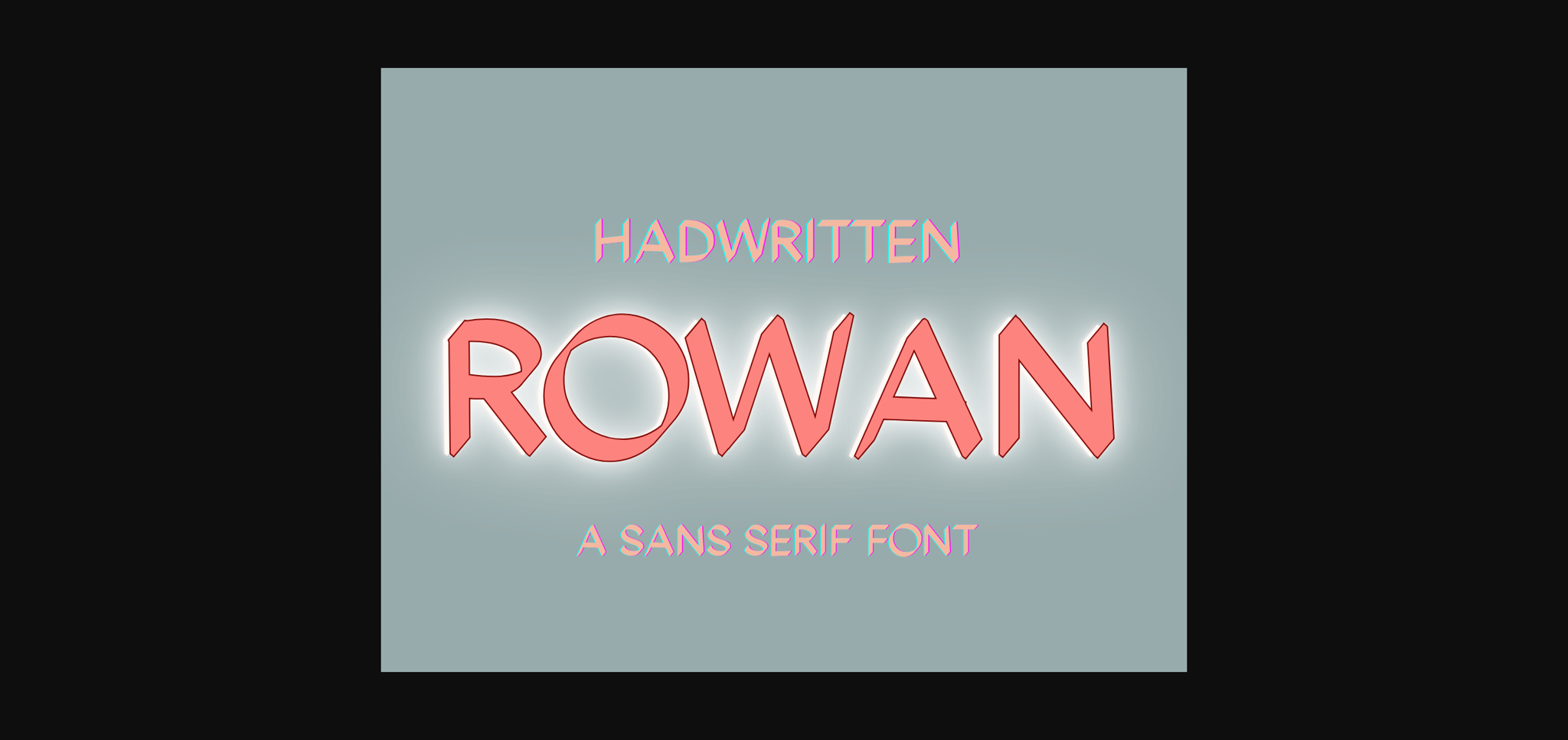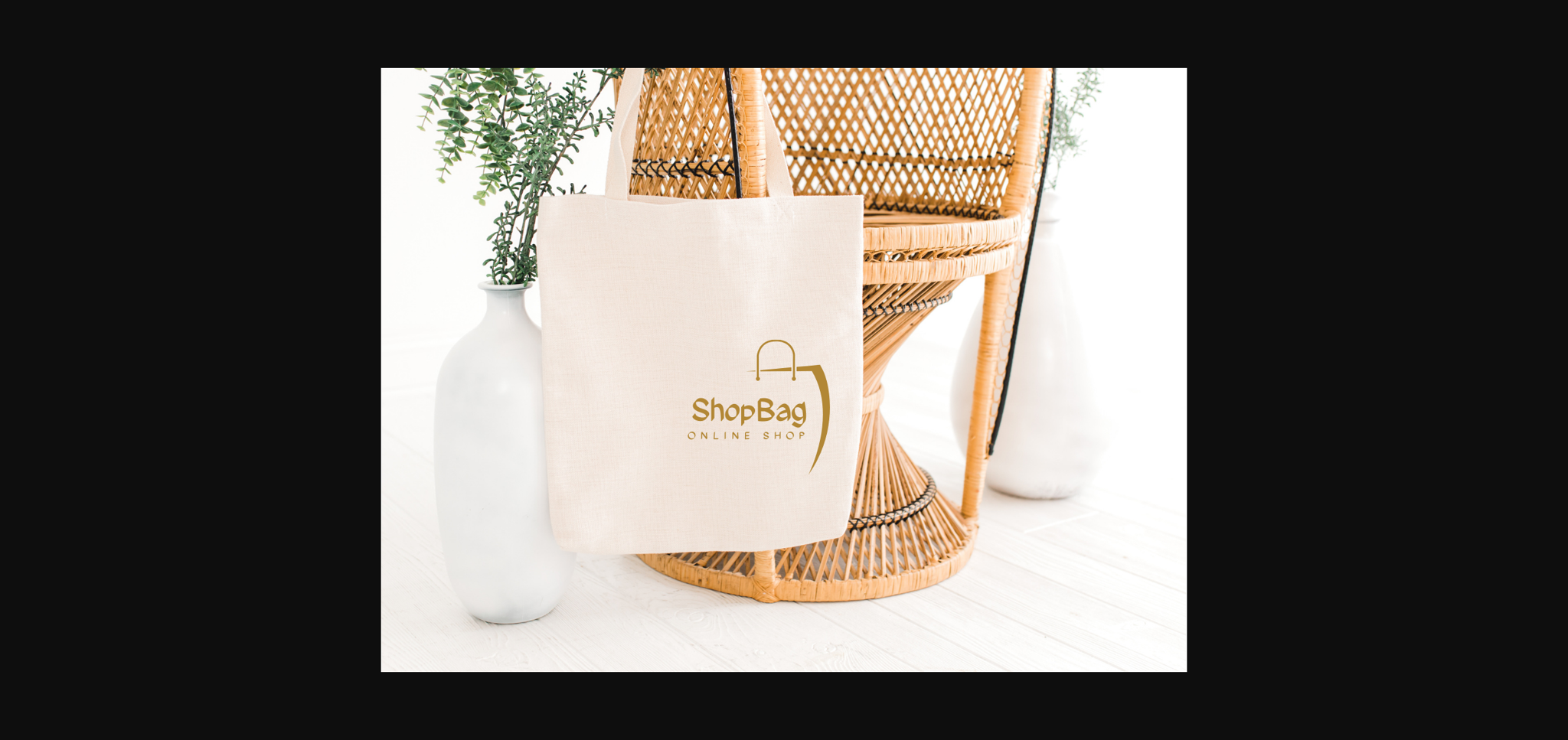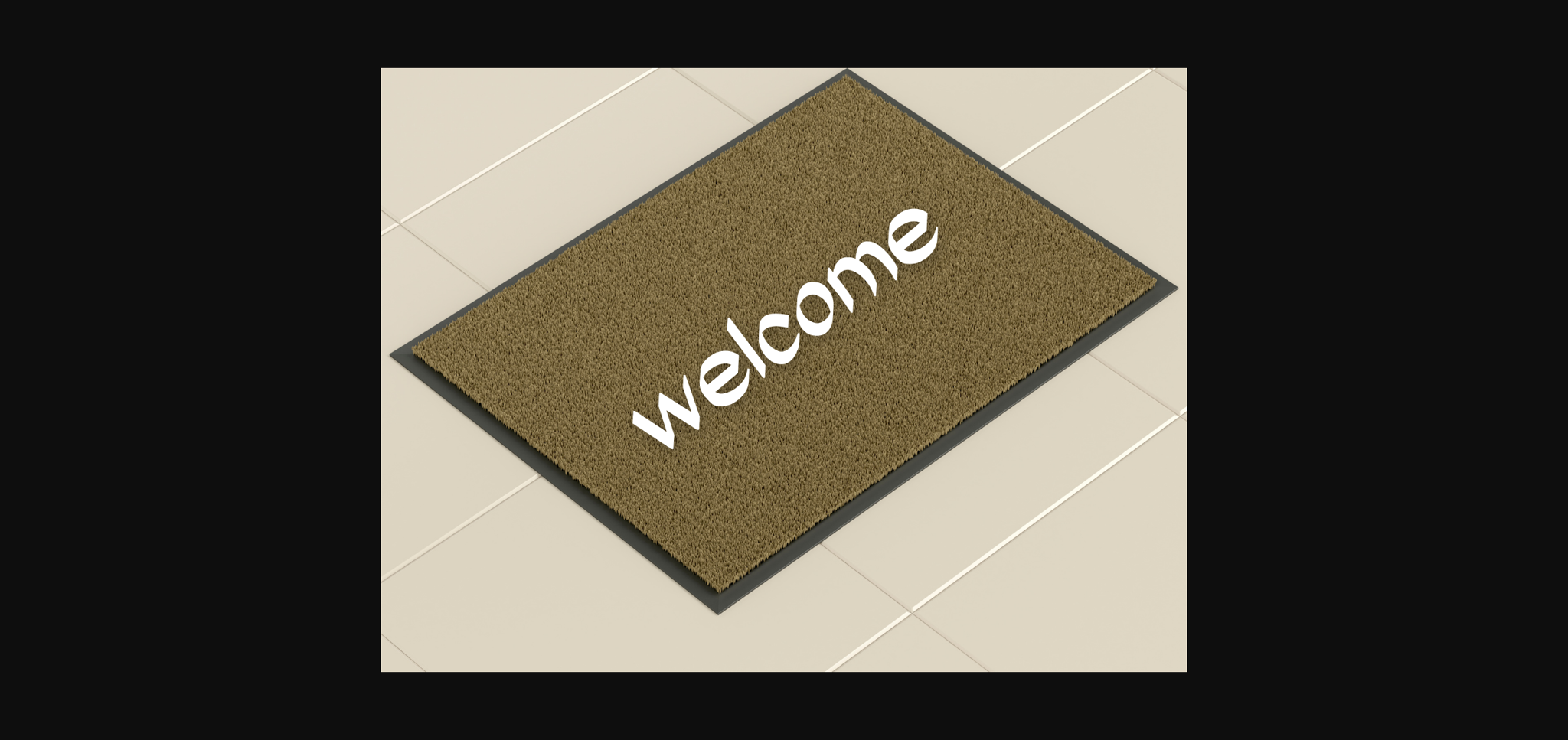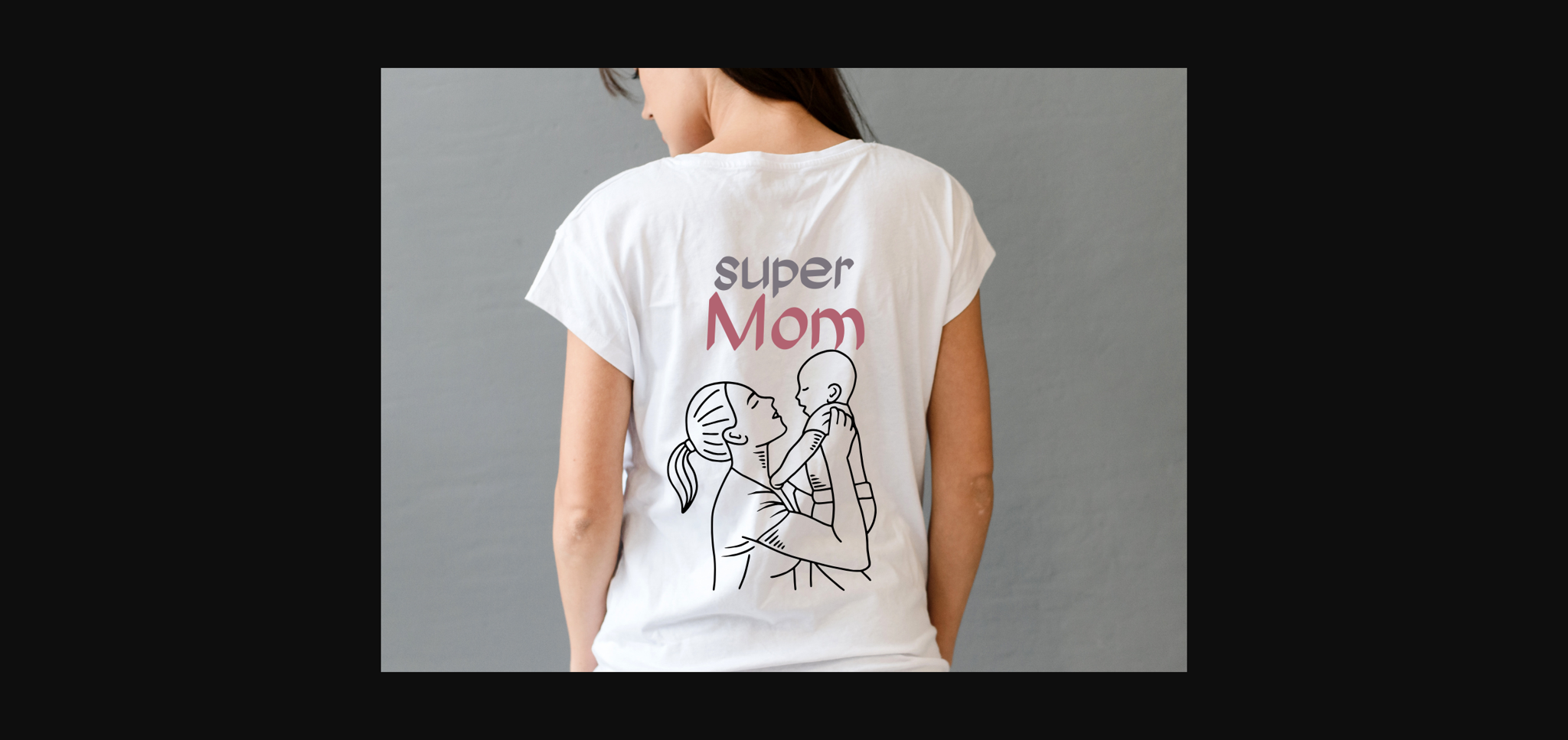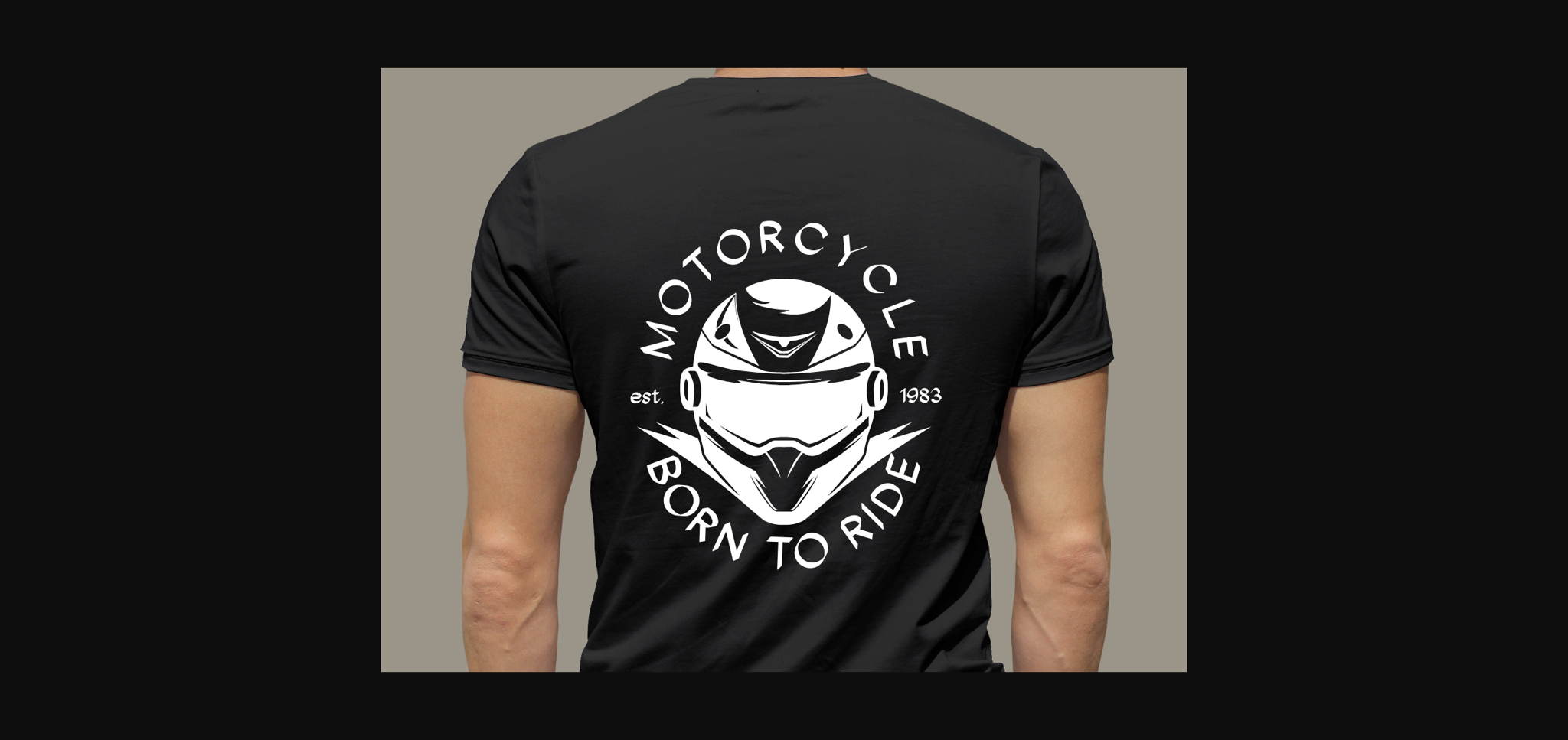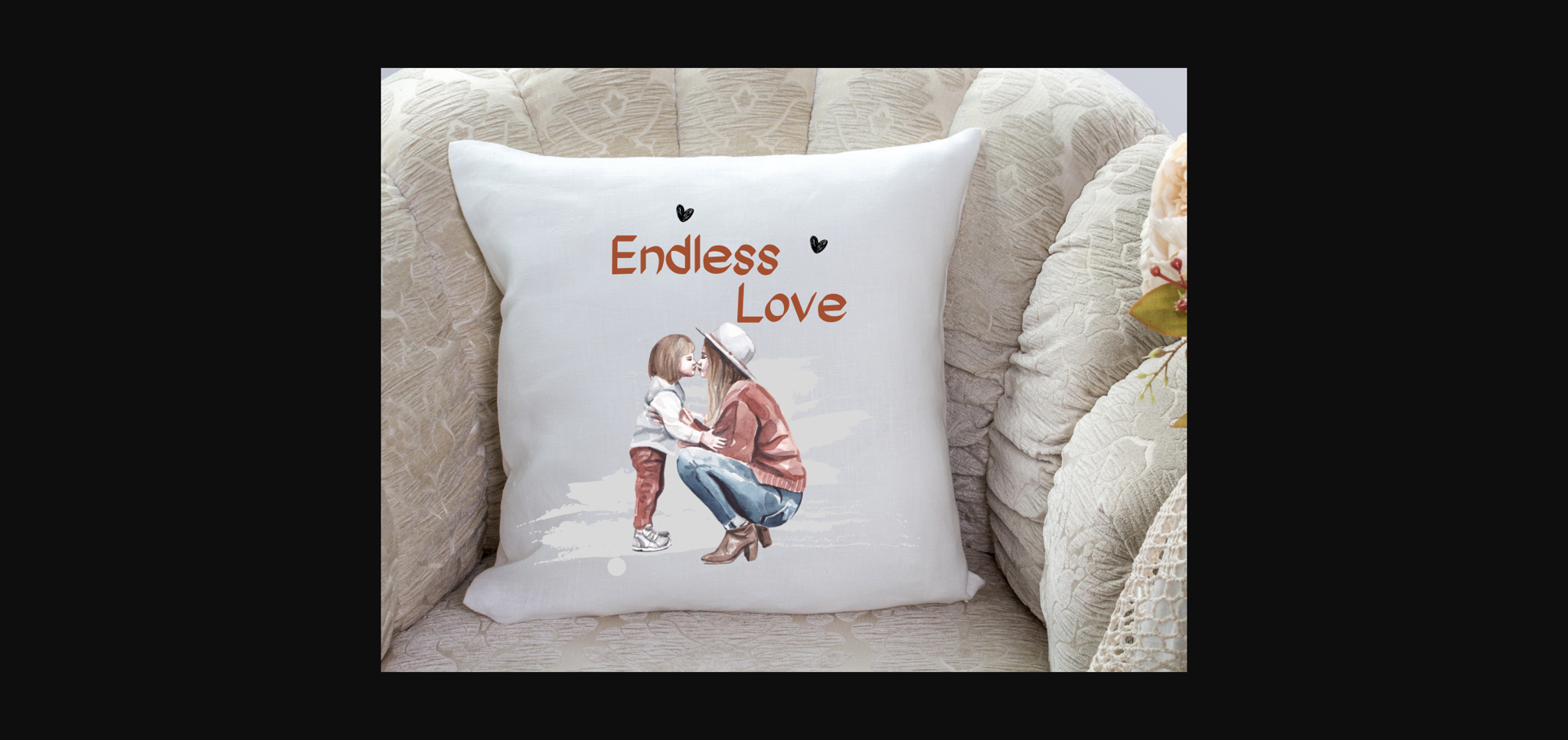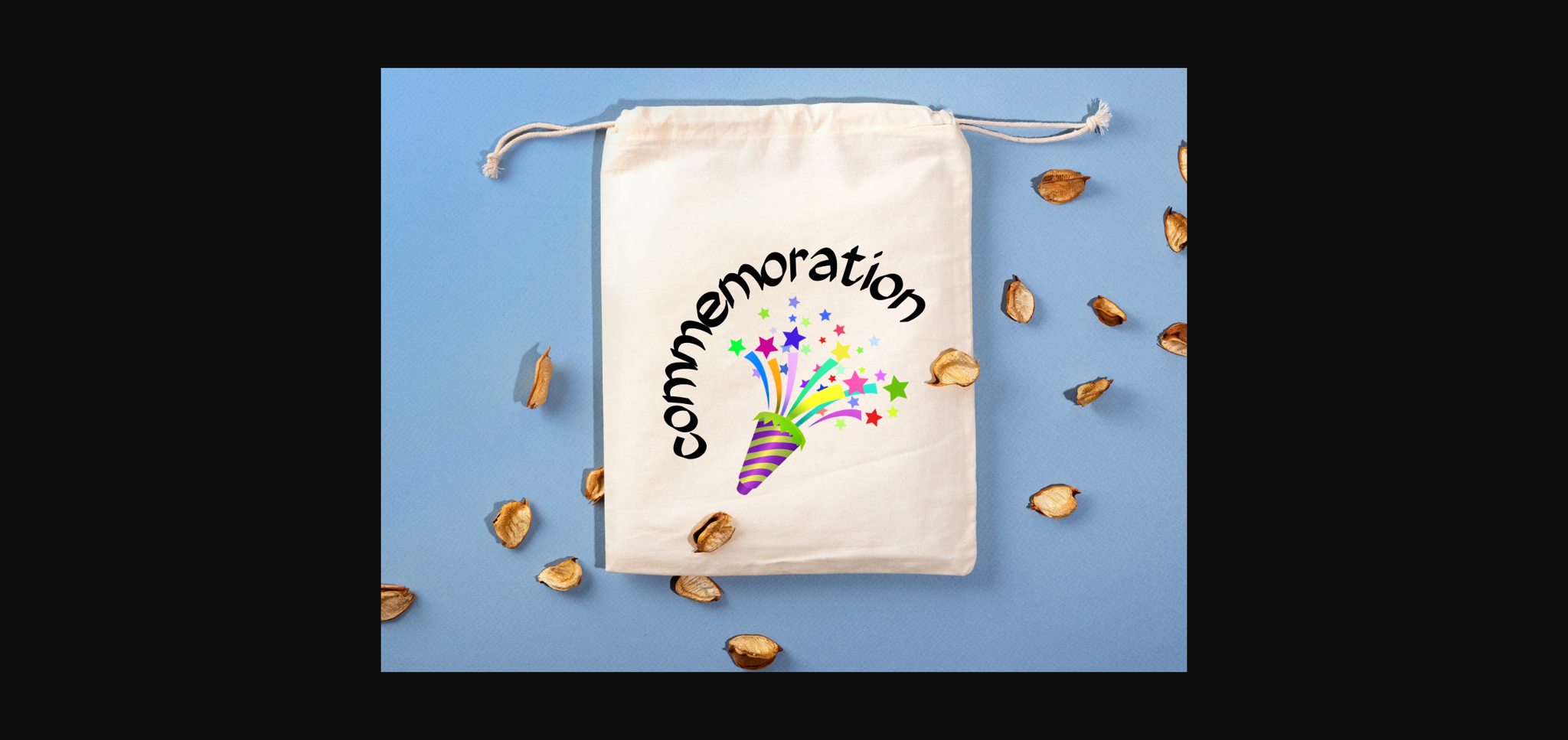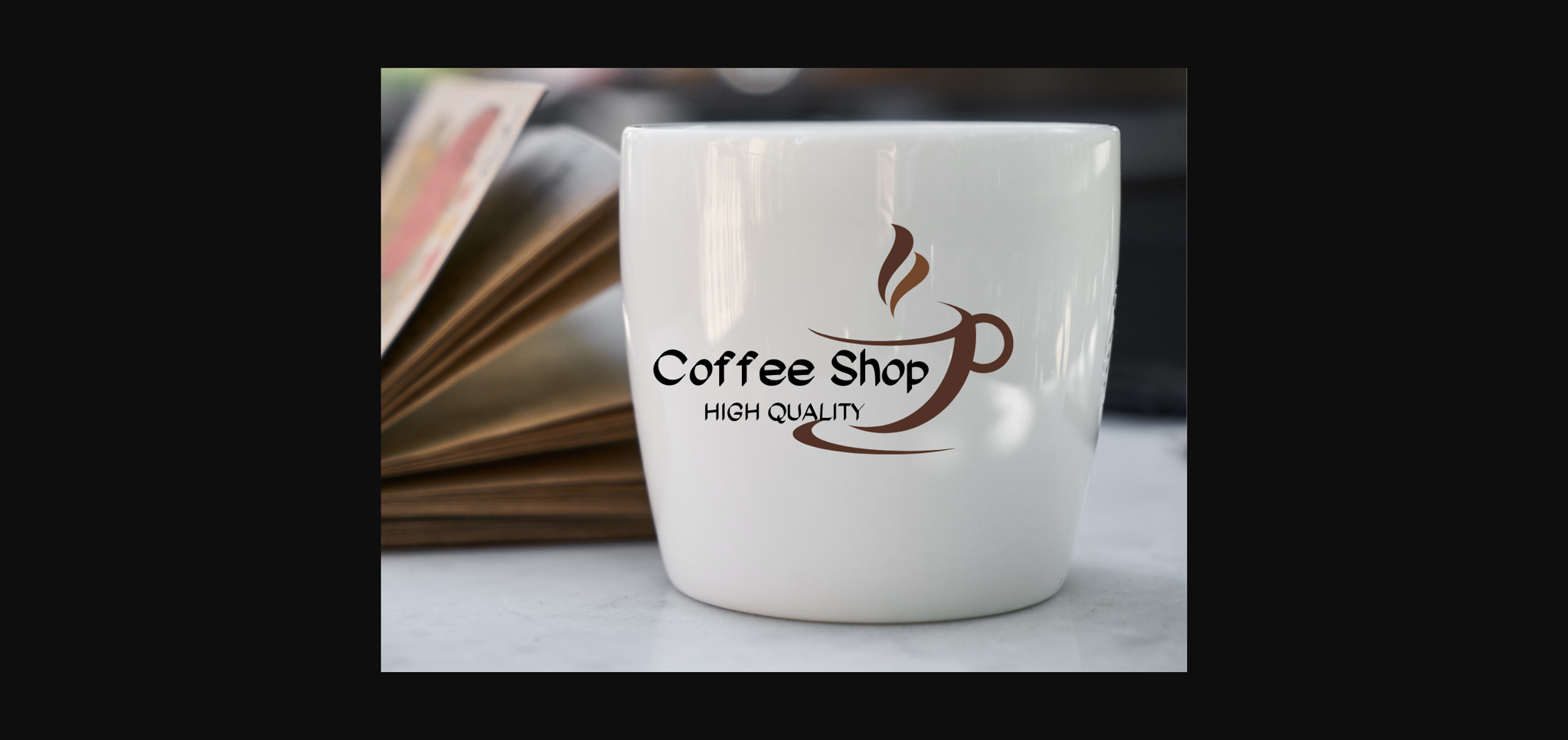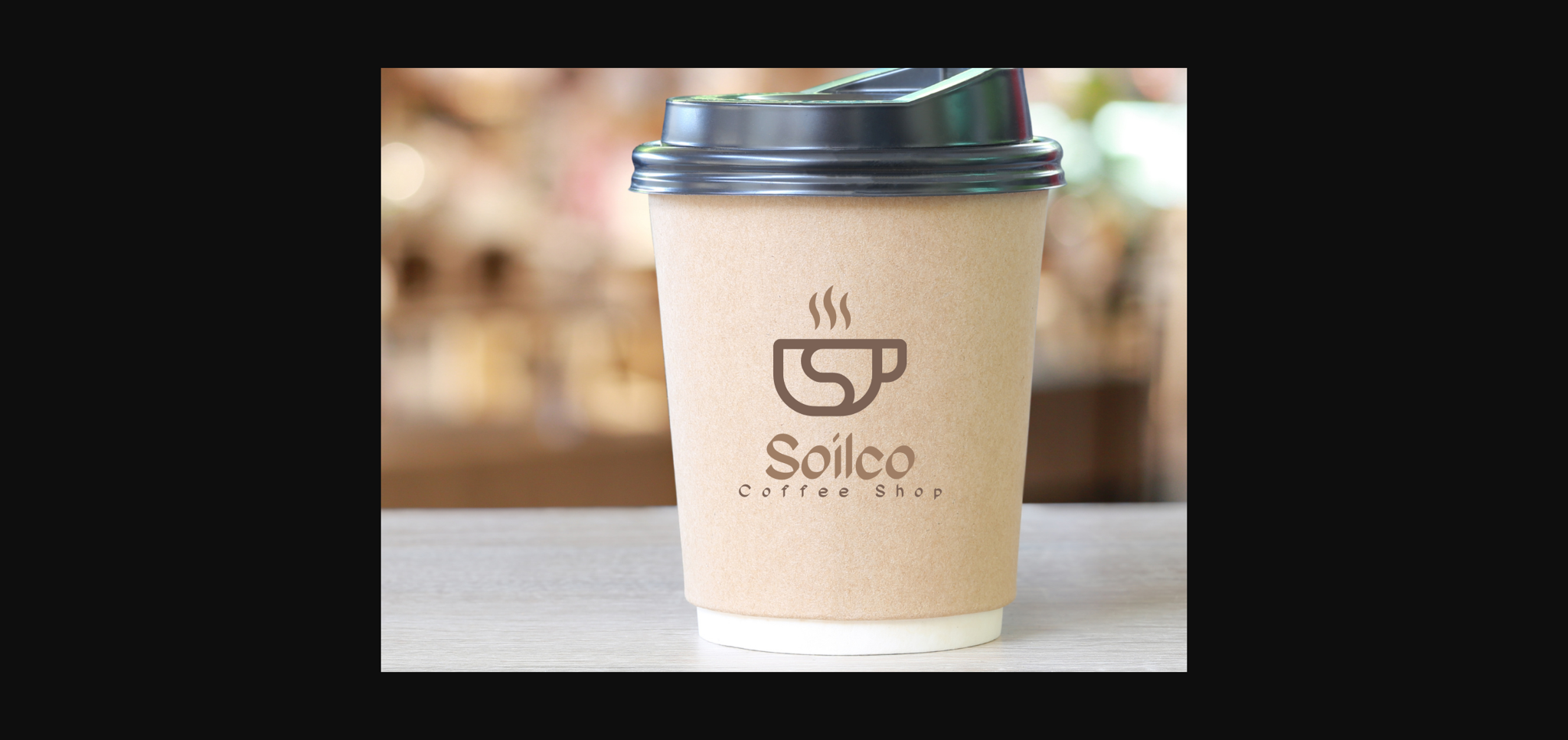
HomeSans Serif FontsRowan Font Sans Serif Fonts Rowan Font FacebookXPinterestWhatsApp 1 of 11 ... Rowan Font Poster 2... Rowan Font Poster 3... Rowan Font Poster 4... Rowan Font Poster 5... Rowan Font Poster 6... Rowan Font Poster 7... Rowan Font Poster 8... Rowan Font Poster 9... Rowan Font Poster 10... Rowan Font Poster 11... About Rowan Font Rowan is a sweet and friendly sans serif font. Its natural and unique style makes it incredibly fitting to a large pool of designs. The only limit is your imagination! DOWNLOAD NOW People also explored Bratterly Font Silly Type Font Summer Holiday Font Beautiful Font Family Font Dream Reality Font Summer Rainbow Font Moxhima Font Hoffmans Signature Font 298 0 TagsRowanRowan Font Previous articleVeena FontNext articleSchoolday Font LEAVE A REPLY Cancel reply Comment: Please enter your comment! Name:* Please enter your name here Email:* You have entered an incorrect email address! Please enter your email address here Website: Save my name, email, and website in this browser for the next time I comment. Personal Use Free Veronica Personal Use Free Read more about this font Gupis Personal Use Free Read more about this font Diland Personal Use Free Read more about this font Critical Personal Use Free Read more about this font BLOG Fonts That Capture the Spirit of New York City New York City is more than just a place—it’s an experience, a rhythm, a visual language... To increase your work productivity, choose the most readable fonts. Best Fonts for YouTube Videos: Make Your Thumbnails Stand Out Free Fonts Risk: Why Free Fonts Can Be Dangerous for Designers